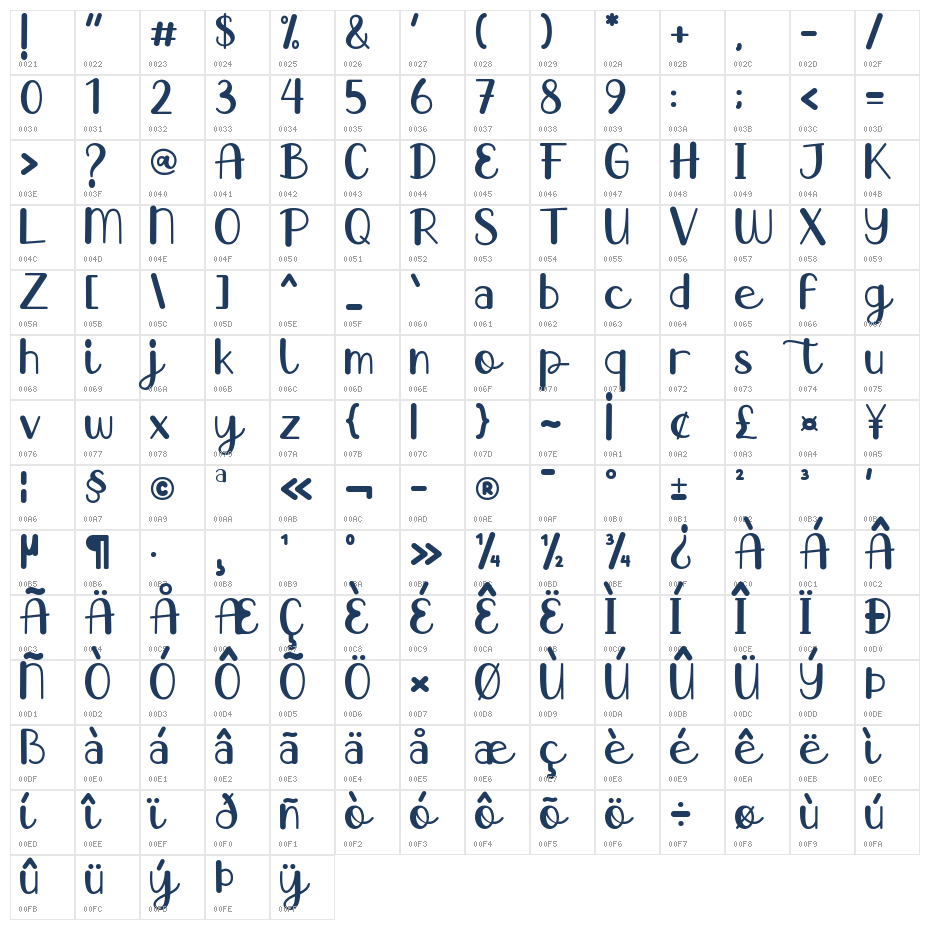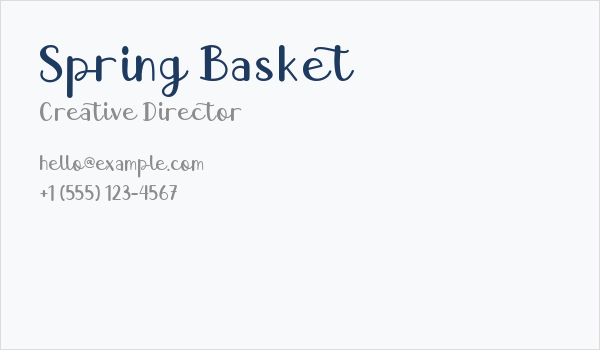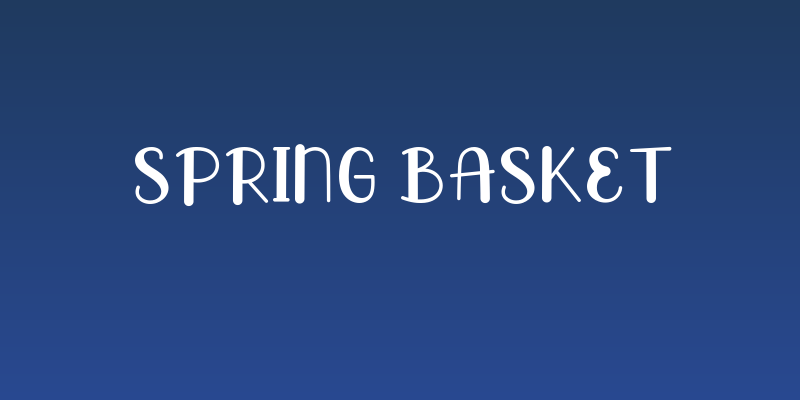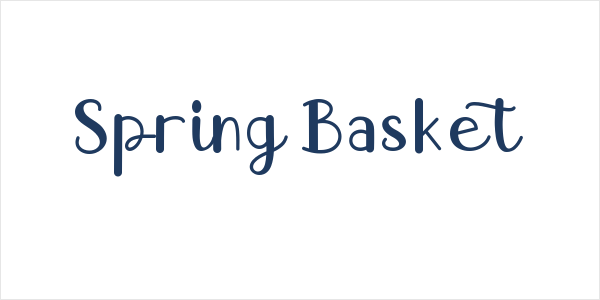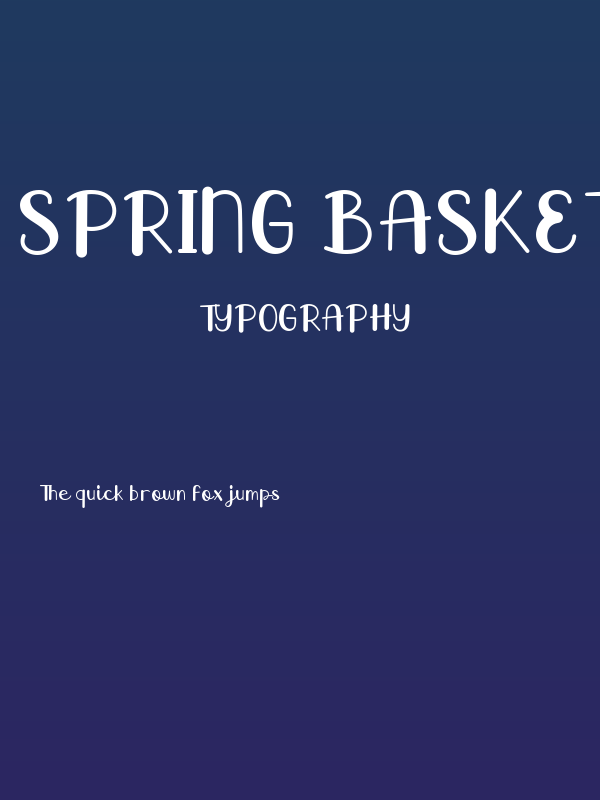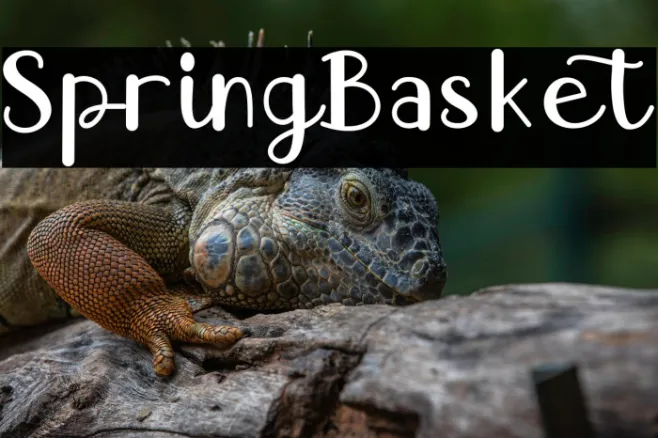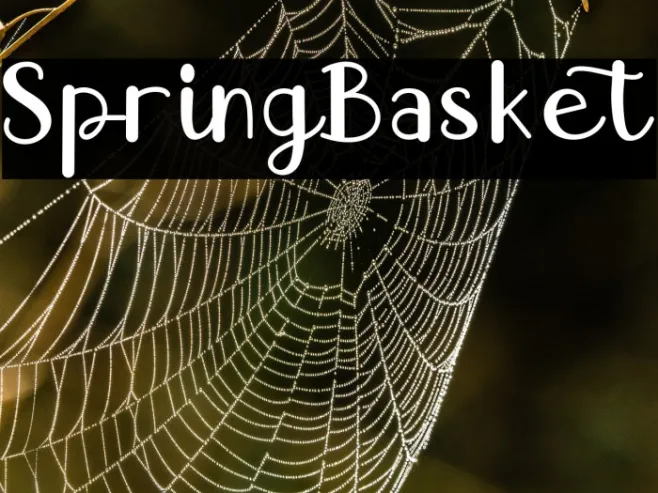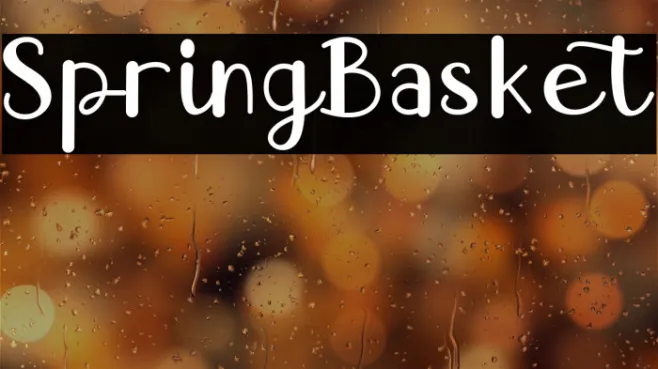
Spring Basket Font
Spring Basket Description
Playful, handwritten style font with irregular, whimsical characters and varied stroke widths.
Spring Basket
| Overall Style | Playful, Casual, Whimsical |
| Use Case | Children's books, casual branding, invitations, creative projects. |